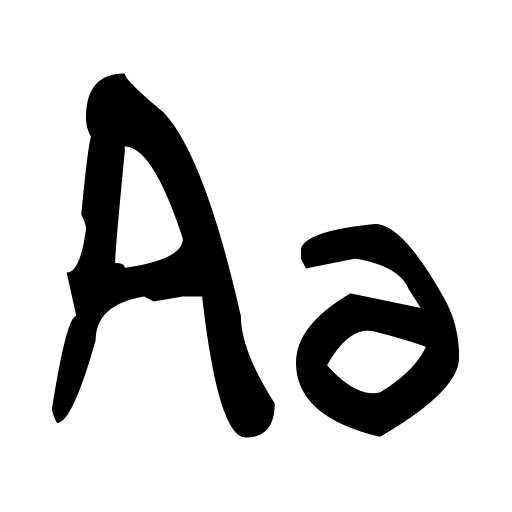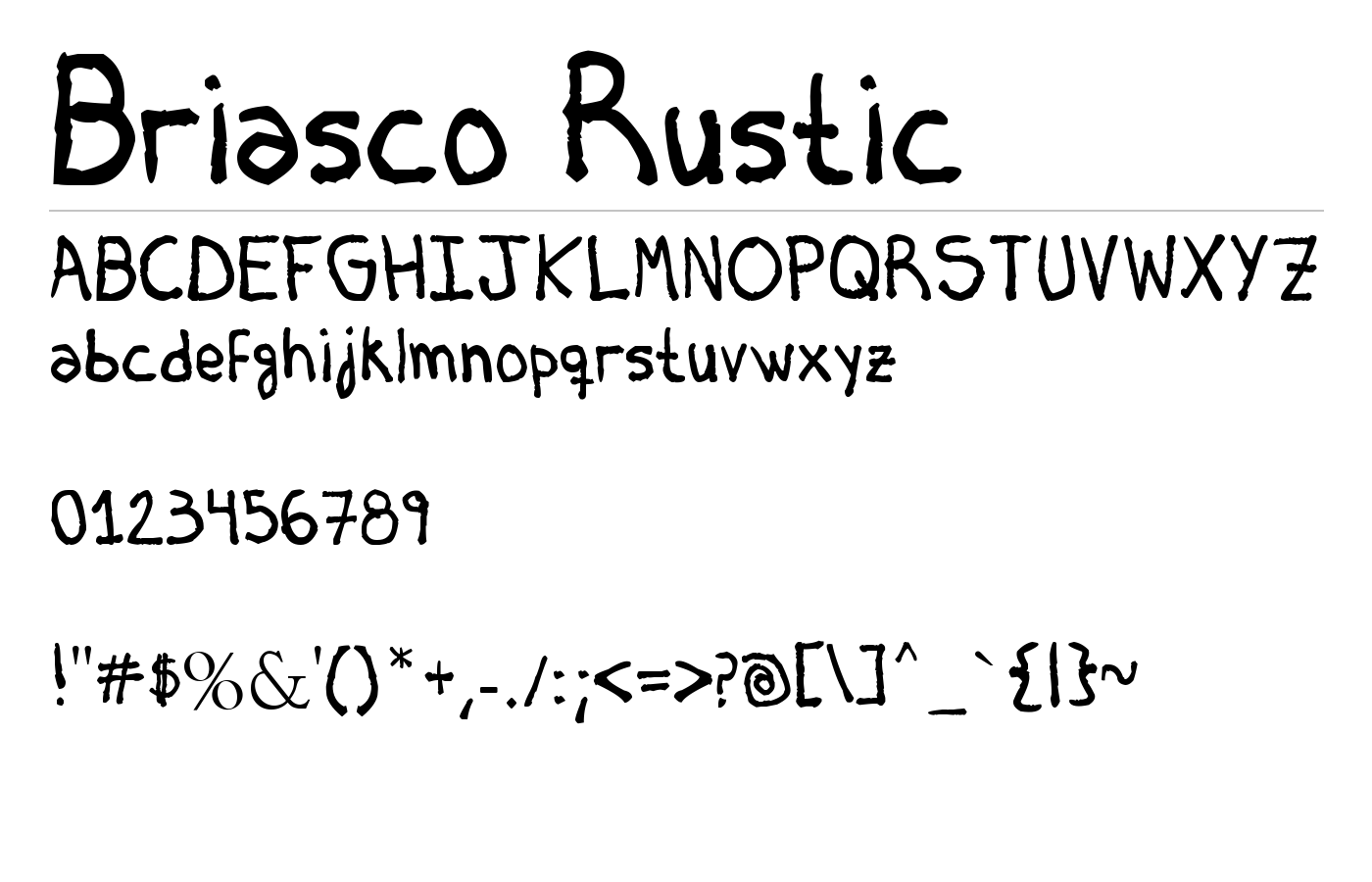
Briasco Rustic is a quirky, hand-drawn sans serif font with an irregular, textured stroke that gives it a charming, rustic feel. Its uneven letterforms and playful imperfections make it perfect for designs that want to convey warmth, creativity, and a casual, handmade touch. This font works great for packaging, posters, and branding that aims to feel approachable and artisanal.
Briasco Rustic Font